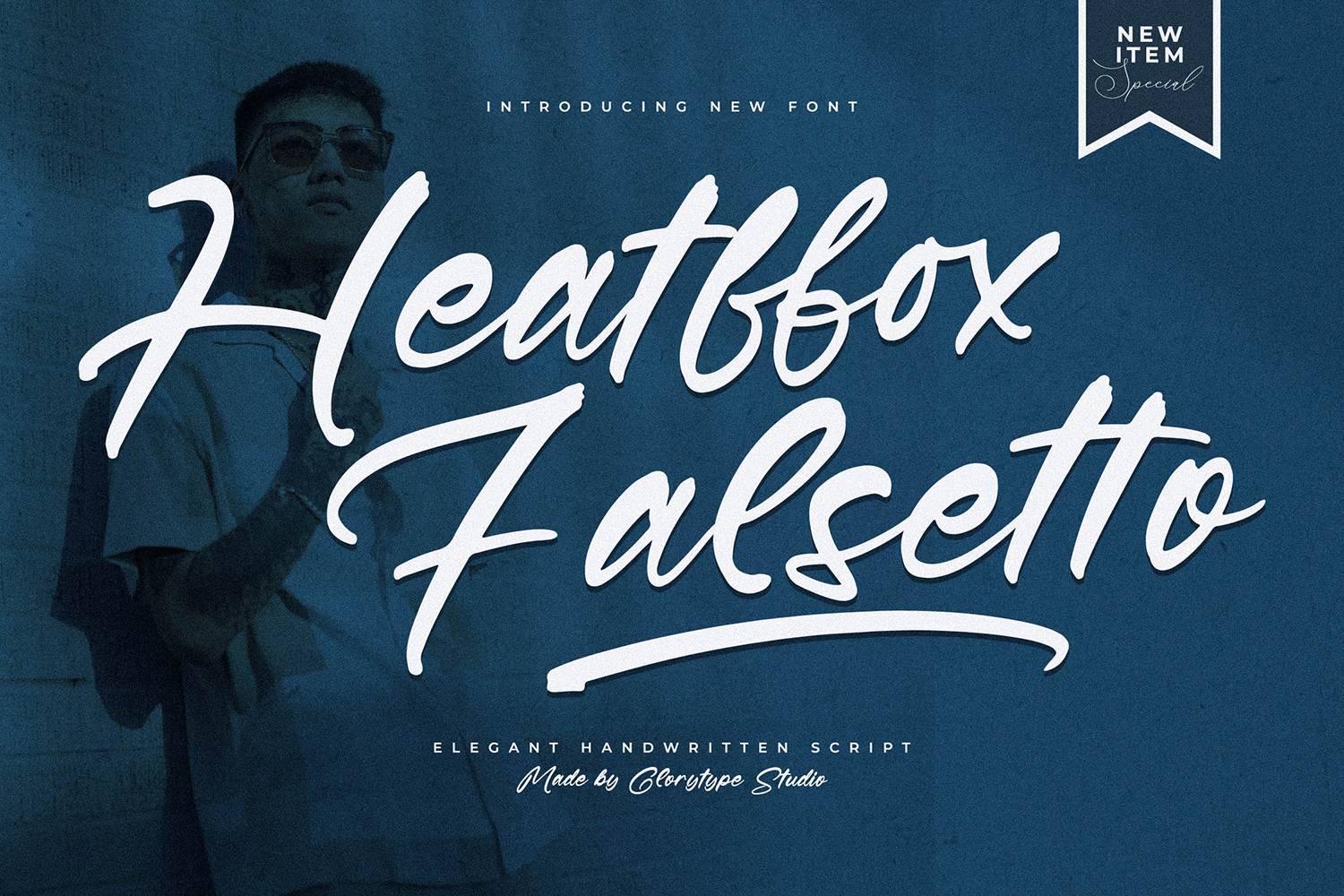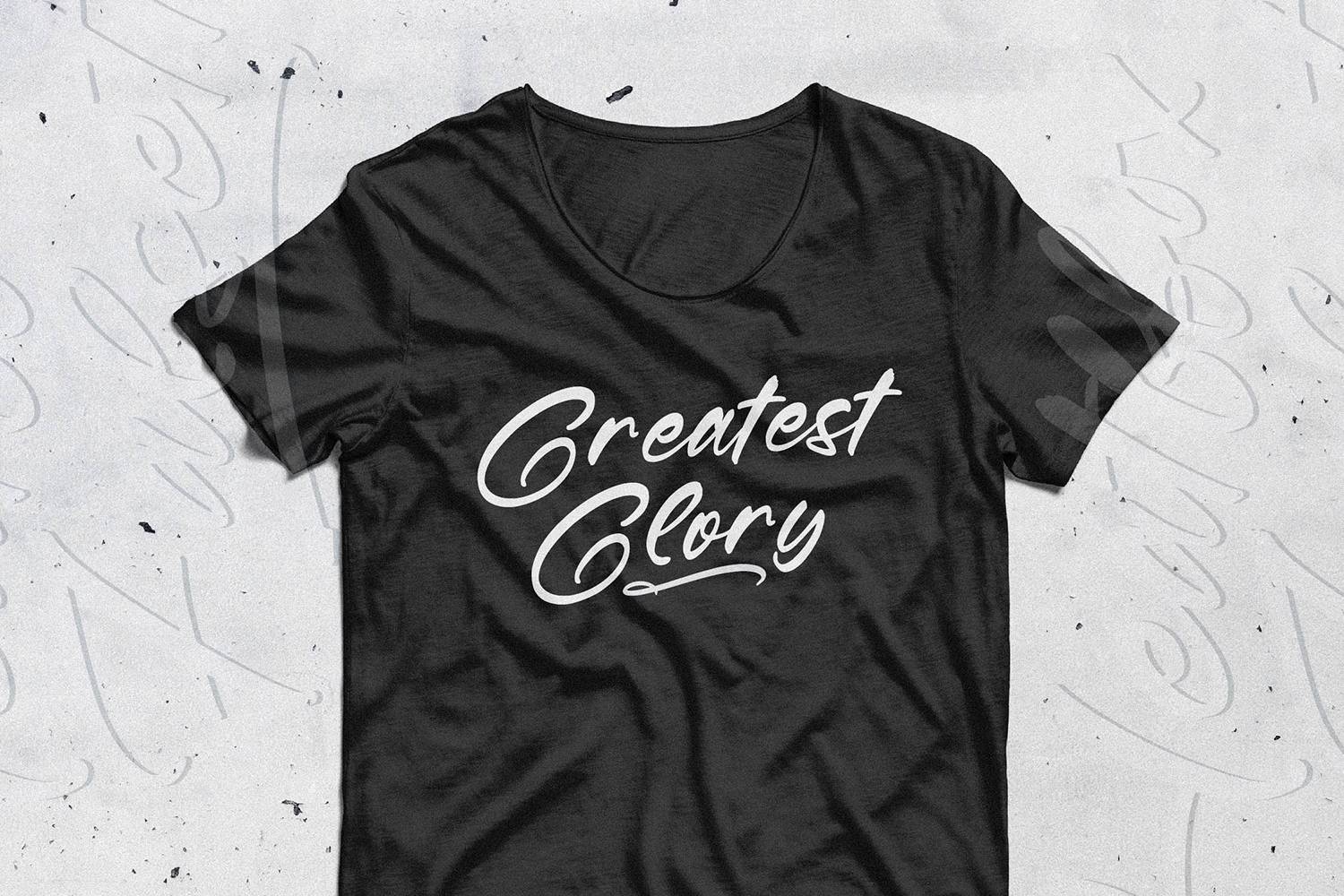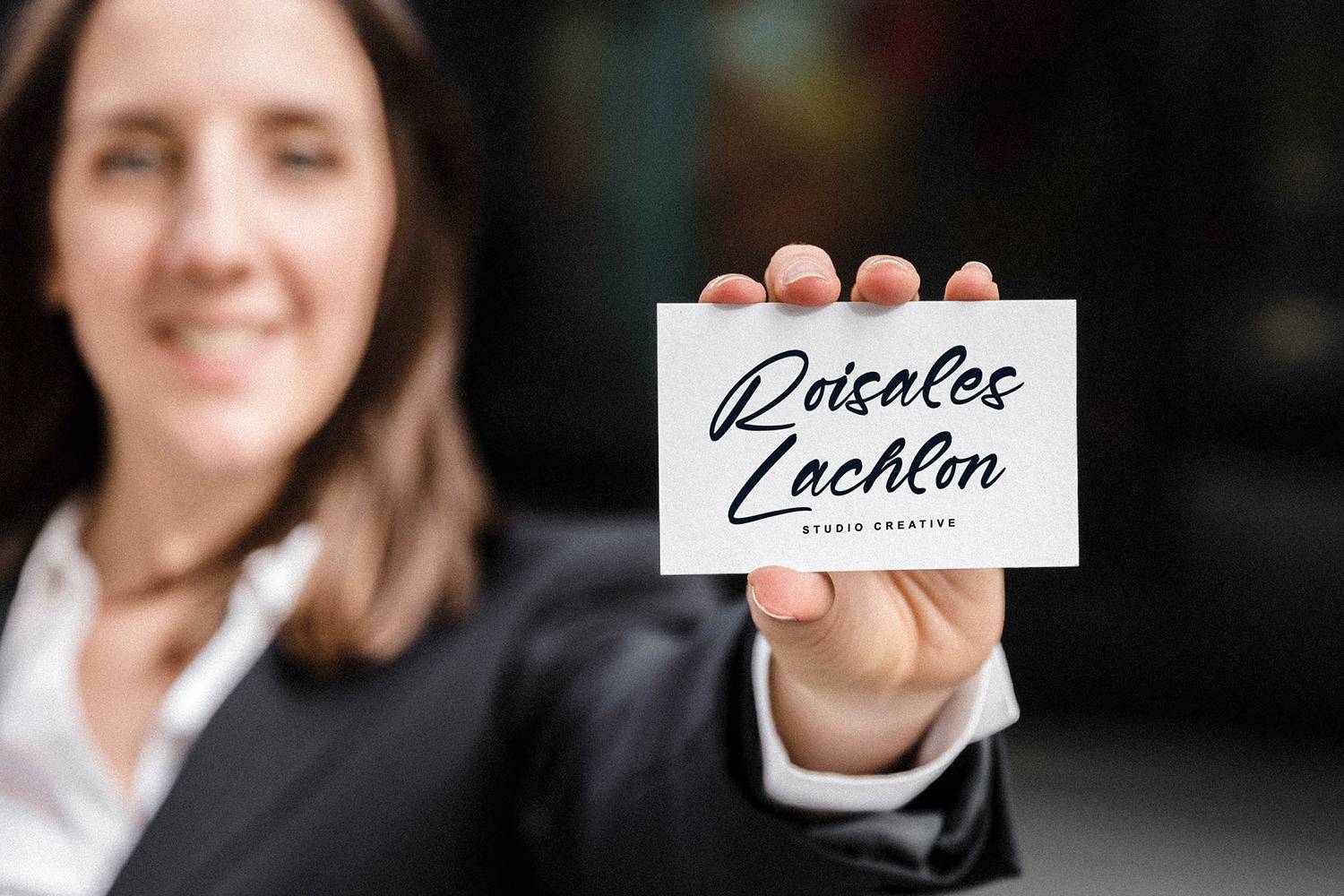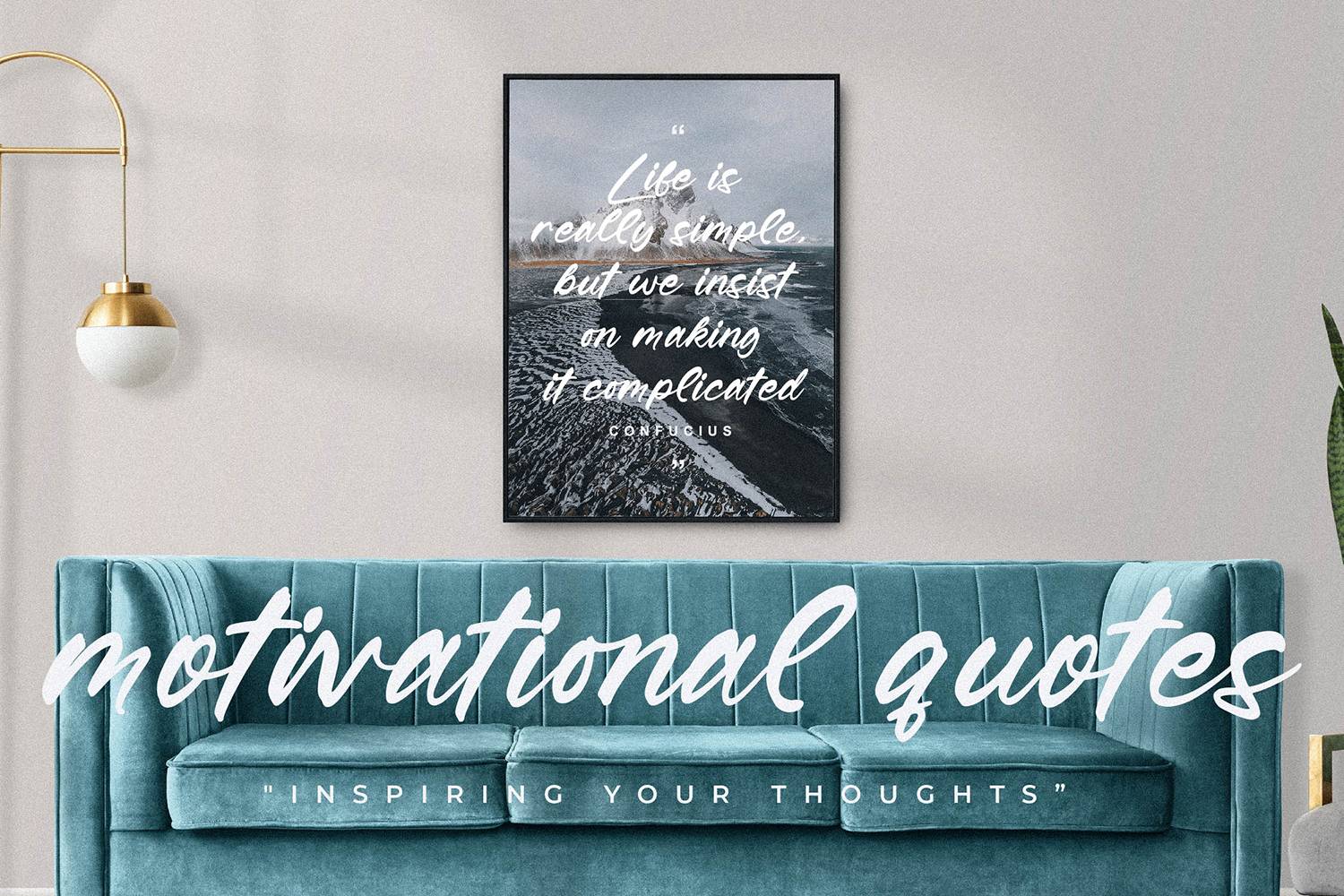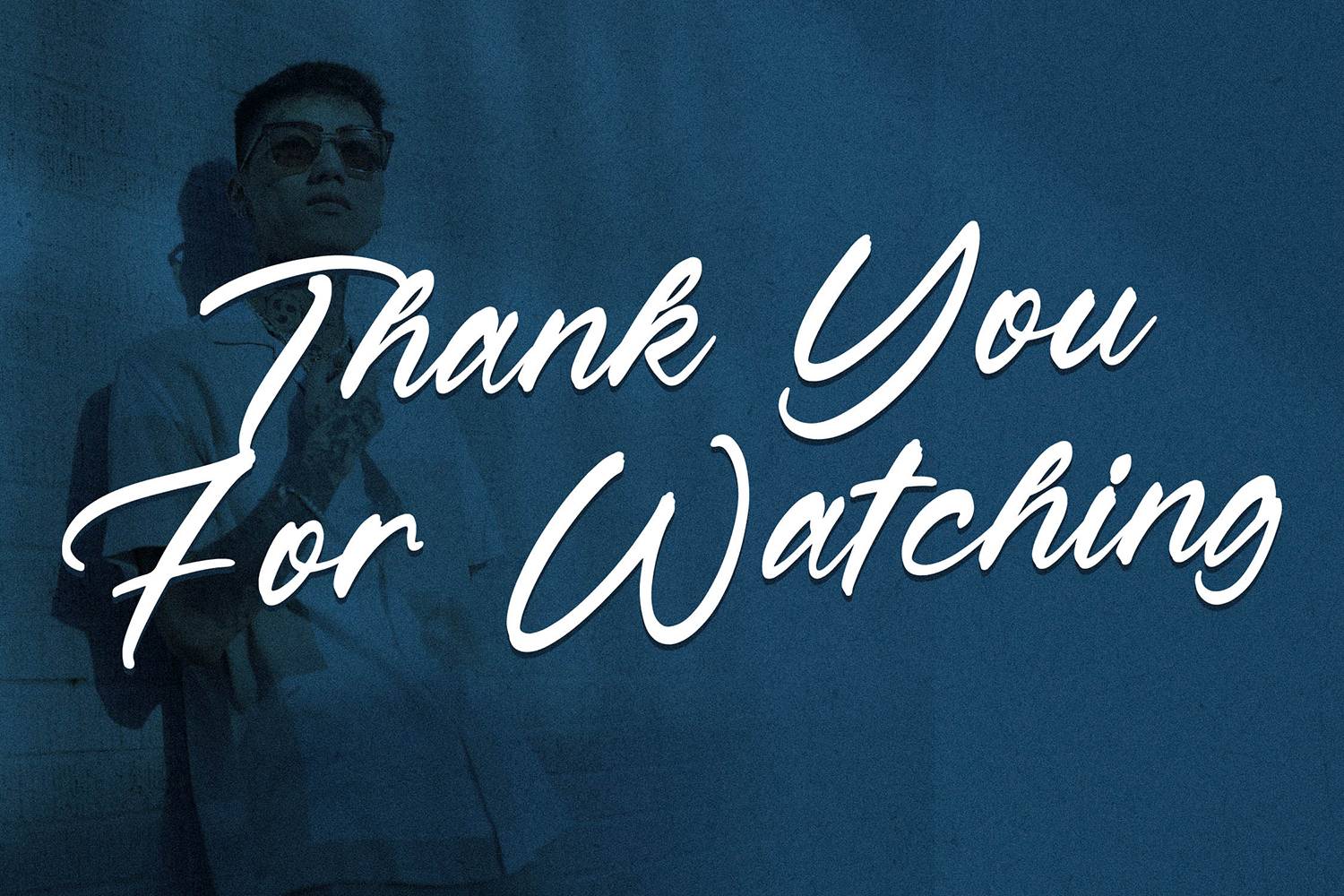
Heatffox Falsetto is a lively, script-style font that combines fluid, hand-drawn strokes with a confident, slightly bold weight. Its tall, narrow letterforms and gentle curves give it a playful yet elegant personality, making it ideal for creative branding, invitations, and stylish headlines. This font works well where a personal, artistic touch is needed without sacrificing readability.
Heatffox Falsetto Font
About Heatffox Falsetto Font